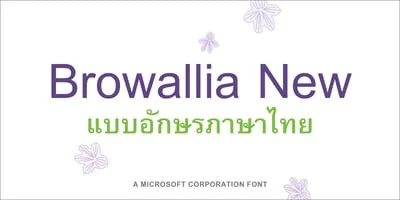
Browallia New Font
Browallia New Font is expertly designed for Thai language typography, multilingual publishing projects, Southeast Asian branding campaigns, international corporate communications, cultural publication designs, educational materials, government documentation, and cross-cultural marketing initiatives. This specialized typeface excels in environments requiring authentic Thai script representation, making it perfect for Thai businesses, international companies operating in Thailand, educational institutions, and any organization needing professional Thai language typography solutions.
What makes Browallia New Font so exciting is its exceptional balance between traditional Thai script aesthetics and modern typographic functionality that ensures both cultural authenticity and contemporary usability. The font features meticulously crafted Thai characters that honor traditional calligraphic principles while incorporating modern design refinements for optimal digital and print performance. Its professional construction and cultural sensitivity make it incredibly valuable for brands requiring authentic Thai language communication. The font's versatile design allows seamless integration with Latin characters for multilingual applications.
Browallia New Font typically includes comprehensive character sets covering the complete Thai Unicode range, multiple weights such as Regular, Bold, and potentially Light variations. The font family often features extended Latin character support for bilingual applications and specialized punctuation marks essential for professional Thai typography. Each weight maintains the font's distinctive cultural character while offering different levels of visual emphasis, providing designers with complete typographic solutions for complex multilingual communication systems.
International designers will find that Browallia New Font delivers superior performance in both traditional and digital media applications requiring Thai language support. The font's advanced OpenType features include proper Thai script rendering, contextual alternates, and specialized diacritical mark positioning essential for accurate Thai typography. Its cultural authenticity makes it particularly effective for Thai government communications, educational publications, cultural institutions, and international businesses requiring professional Thai language branding.
The careful attention to traditional Thai script proportions and spacing ensures that Browallia New Font maintains cultural accuracy while delivering excellent readability across all sizes and applications. Its authentic design language makes it exceptionally suitable for Thai cultural organizations, international corporations, educational institutions, and publishing companies. The font's professional appearance creates cultural credibility while remaining highly functional across different design contexts from traditional print to modern digital platforms.
For designers seeking a typeface that embodies Thai cultural authenticity with contemporary functionality, Browallia New Font represents an essential choice that will enhance any Thai language project with its distinctive character and cultural integrity.